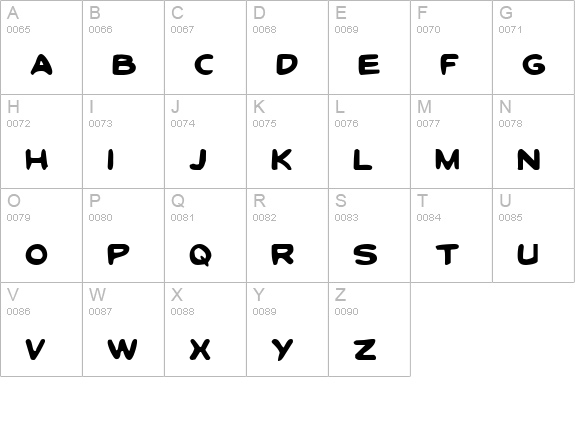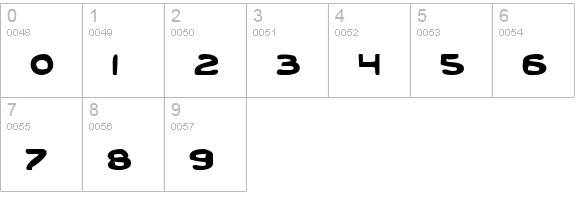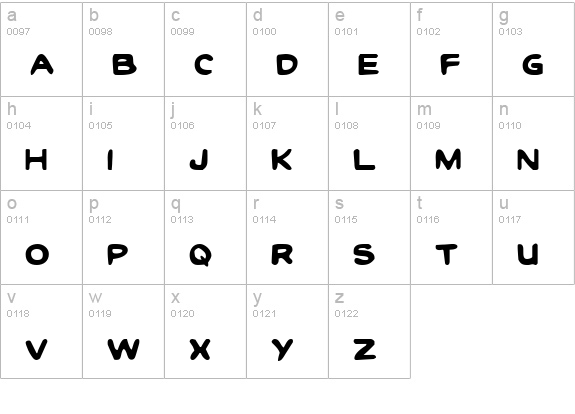
Toon Town Industrial Regular is the standard, neutral variant in the Toon typeface family \xE2\x80\x94 well suited to general body text, paragraphs, and standard typographic work.
Toon Town Industrial Regular font is a playful and energetic typeface that captures the essence of a vibrant, bustling city. With its bold and sturdy letterforms, this font exudes a sense of strength and reliability, making it perfect for conveying a sense of industrial prowess. The characters in Toon Town Industrial Regular font are meticulously crafted to emulate the look of hand-drawn cartoons, with exaggerated curves and whimsical details. Its unique design adds a touch of character and charm to any project, making it a versatile choice for a wide range of applications. Whether you're designing a logo for a tech company, creating eye-catching posters, or adding a playful touch to your website, Toon Town Industrial Regular font is sure to catch the attention of your audience. Its bold and distinct appearance ensures that your message will stand out, leaving a lasting impression. What's even better is that Toon Town Industrial Regular font is available for free download at FontsMarket.com. This means that you can easily access this charming typeface and incorporate it into your designs without any hassle. FontsMarket.com offers a wide range of fonts, and Toon Town Industrial Regular font is just one of the many options available. So, if you're looking for a font that combines the nostalgic charm of cartoons with a touch of industrial strength, look no further than Toon Town Industrial Regular font. Download it for free at FontsMarket.com and unleash your creativity with this playful and versatile typeface.